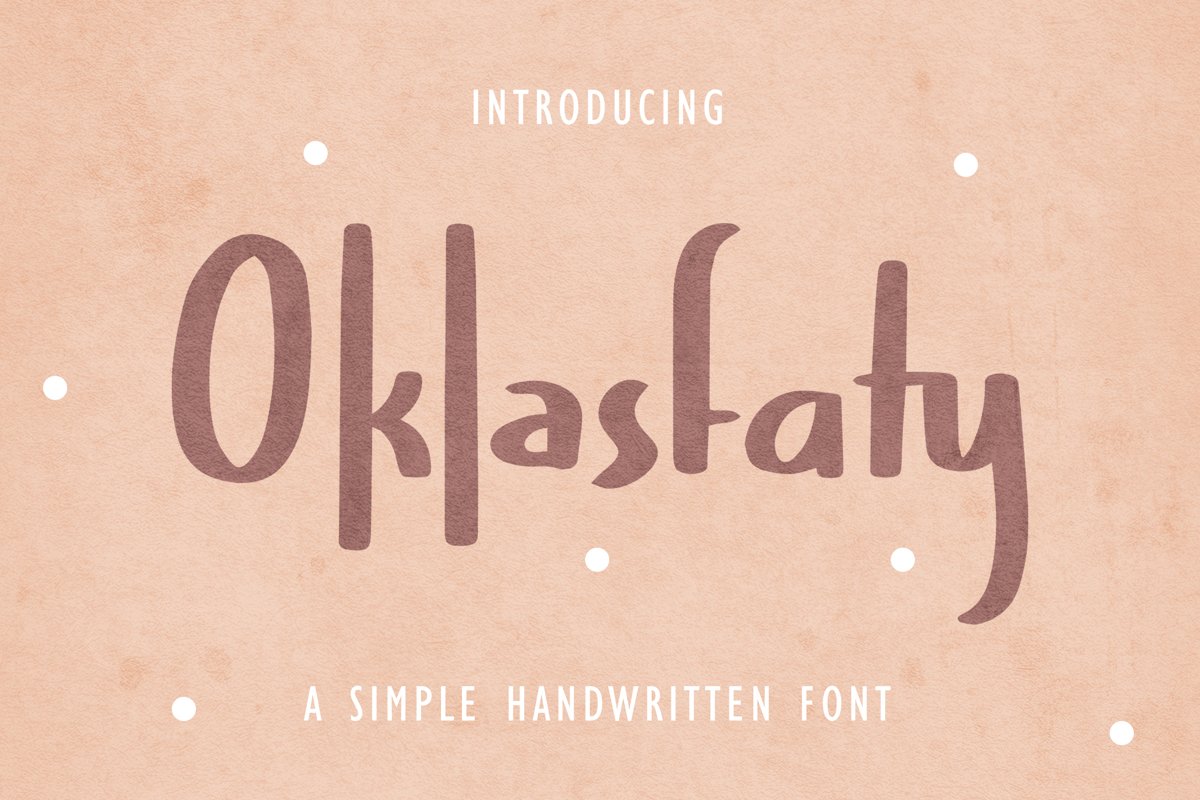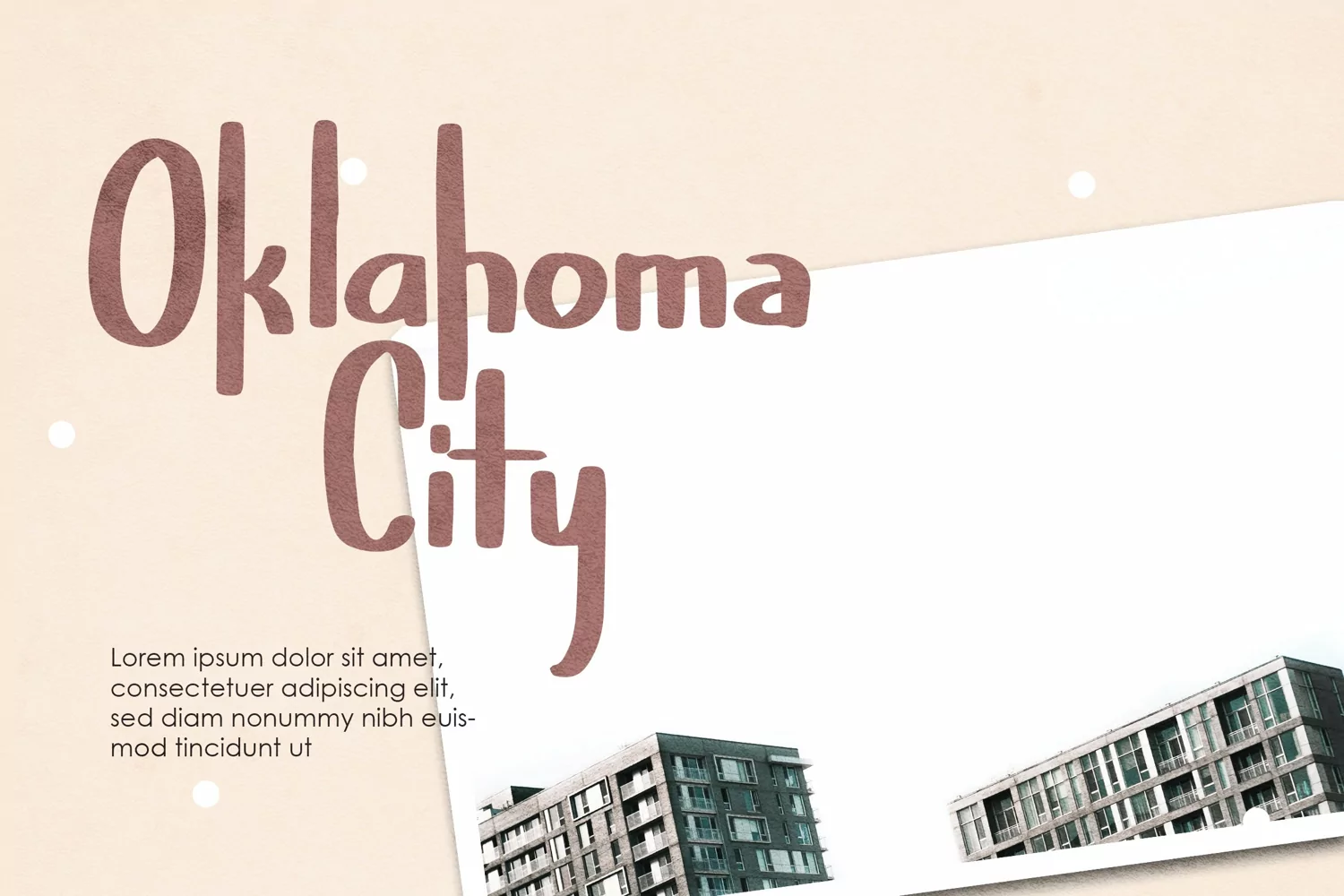
Oklasfaty - Simple Handwritten Font that contain lowercase, uppercase, symbol, and also support multi language. There’s a lot ligatures in this font. This Font also comes with ligatures, alternates and many more. this font suitable for fashion, branding, catalog and other design what you want.